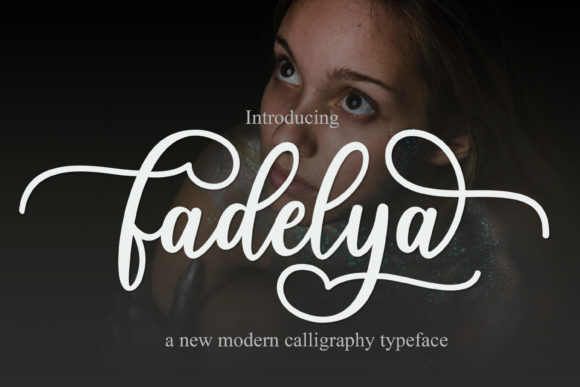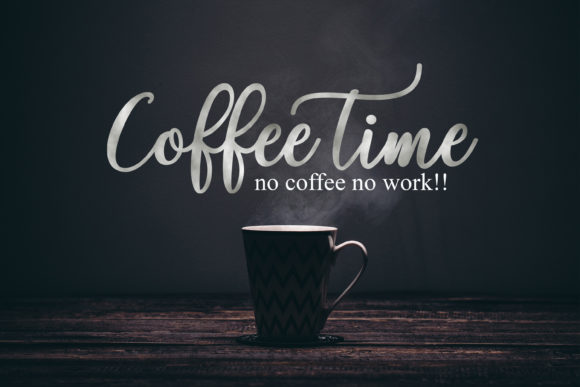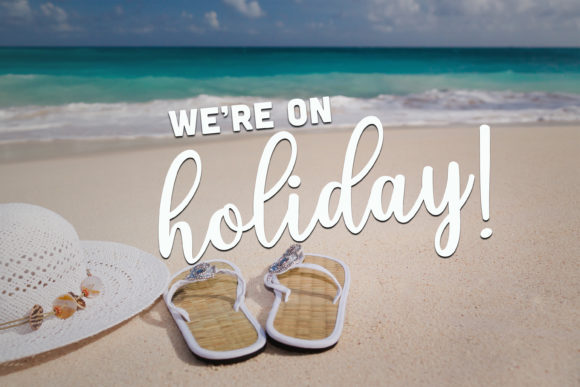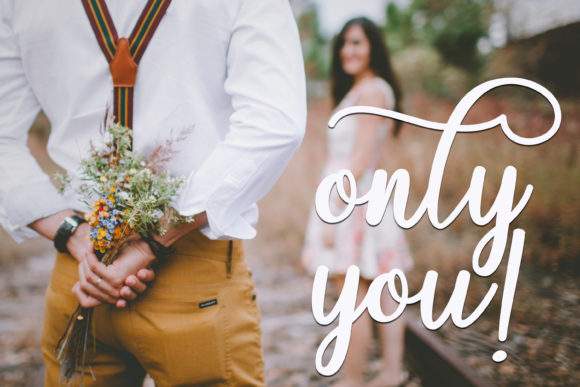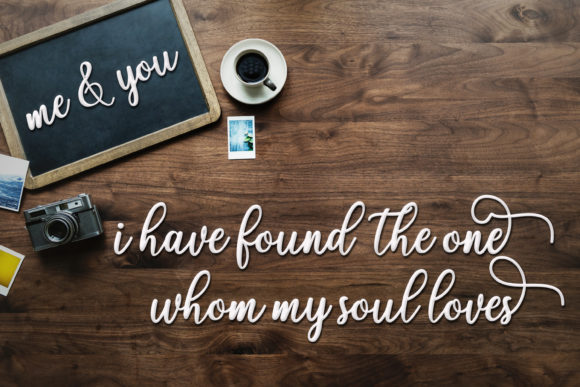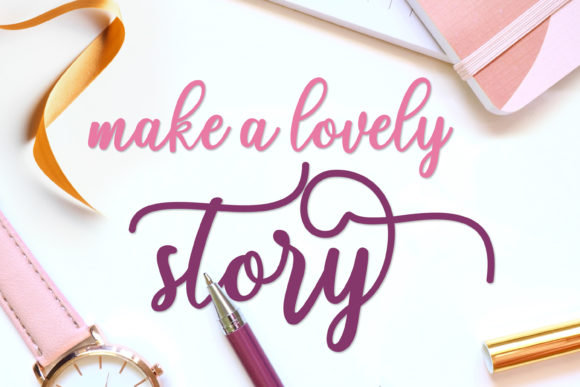
Introduction to Fadelya Script Font
Have you ever found yourself stuck in a creative rut, struggling to find the perfect font to bring your project to life? I know I have. But then, I stumbled upon the Fadelya Script Font – a modern calligraphy masterpiece that has been a game-changer for my design endeavors.
With its beautiful handwriting style, the Fadelya Script Font is perfect for a wide range of creative projects, from branding and wedding invitations to magazines, mugs, and business cards. Its high-quality design makes it an invaluable resource for designers seeking to elevate their work. Plus, with a transparent background option, you can easily integrate it into your designs without any hassle. Whether you’re working on a free download or a paid project, the Fadelya Script Font is a valuable addition to your design arsenal.
In this article, we’ll dive deeper into the world of the Fadelya Script Font, exploring its features and uses in more detail. From its free download options to its versatility in design, we’ll cover everything you need to know to get the most out of this amazing font.
Key Features of Fadelya Script Font
- Unique, hand-drawn design perfect for creative projects and artistic endeavors
- High-quality font with transparent background, ideal for graphic designers and digital artists
- Includes a range of characters, including uppercase and lowercase letters, punctuation marks, and numbers
- Designed with a high-resolution aesthetic, making it suitable for print and digital applications
- Perfect for adding a touch of elegance and sophistication to your creative project, from wedding invitations to branding materials
Honest Review: Fadelya Script Font
I recently had the chance to work with the Fadelya Script Font, and I must say it’s been a game-changer for my creative projects. The high-quality design and beautiful script style make it perfect for any project that requires a touch of elegance and sophistication.
- ✨ Beautifully crafted script style that adds a personal touch to any project
- ✨ High-quality design that ensures crisp and clear typography
- ✨ Transparent background makes it easy to use with any image or design
- ⚠️ Limited character set, which can be a issue for projects that require a wide range of characters
- ⚠️ Not ideal for projects that require a bold or sans-serif font style
Overall, I’m extremely impressed with the Fadelya Script Font. It’s a valuable design resource that can elevate any creative project. While it may have a few limitations, the benefits far outweigh the drawbacks. If you’re looking for a high-quality script font, I highly recommend giving it a try.
Tips for Getting the Most Out of Fadelya Script Font
For the best results, pair the Fadelya Script Font with other high-quality fonts and design elements. Experiment with different font sizes and styles to create a unique look. You can also use the font in conjunction with transparent backgrounds for a professional and creative look.
Common Use Cases for Fadelya Script Font
The Fadelya Script Font is perfect for a variety of creative projects, including wedding invitations, branding materials, and social media graphics. Its elegant and sophisticated look makes it a great choice for any project where you want to convey a sense of luxury and style.
Is the Fadelya Script Font a high-quality design resource?
Yes, the Fadelya Script Font is a high-quality design resource, carefully crafted to provide a unique and elegant look for your creative project. With its sophisticated design and attention to detail, the Fadelya Script Font is an excellent choice for designers seeking a premium font for their work.